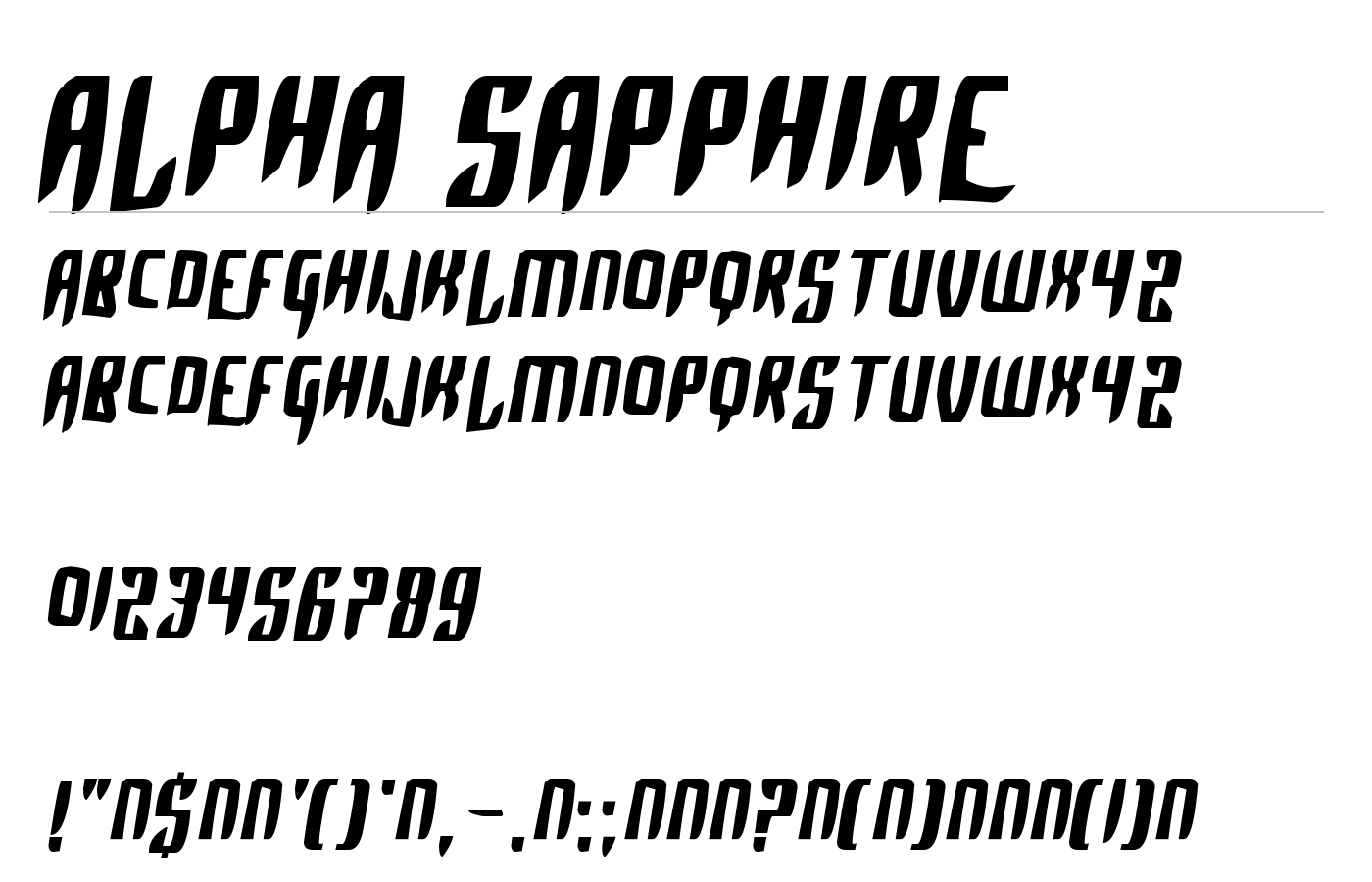
Alpha Sapphire is a bold, condensed sans serif font with a dynamic, futuristic vibe. Its sharp, angular strokes and high contrast between thick and thin lines give it an energetic, modern look, making it ideal for headlines, logos, and branding in tech, sports, or entertainment. This font’s unique, slightly italicized letterforms add movement and attitude, perfect for projects seeking a strong, adventurous personality.
Alpha Sapphire Font
About Alpha Sapphire Font
| Designer | Andrew McCluskey |